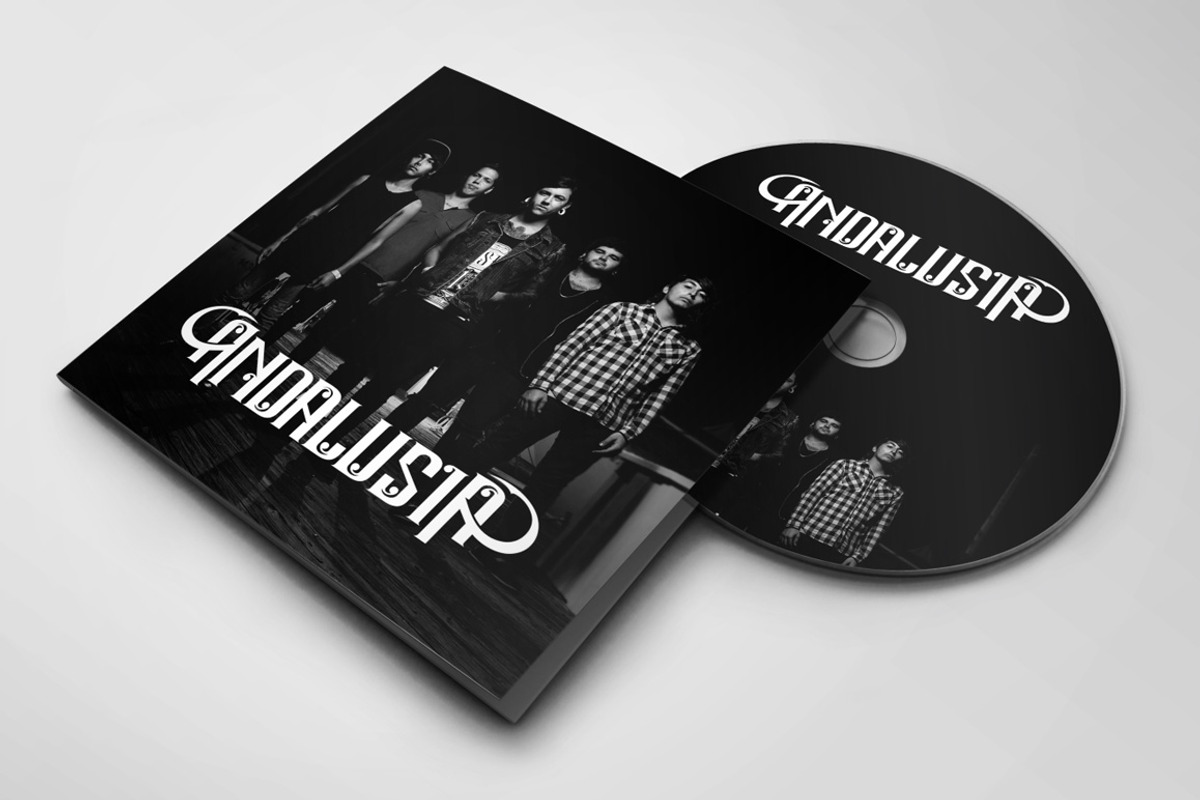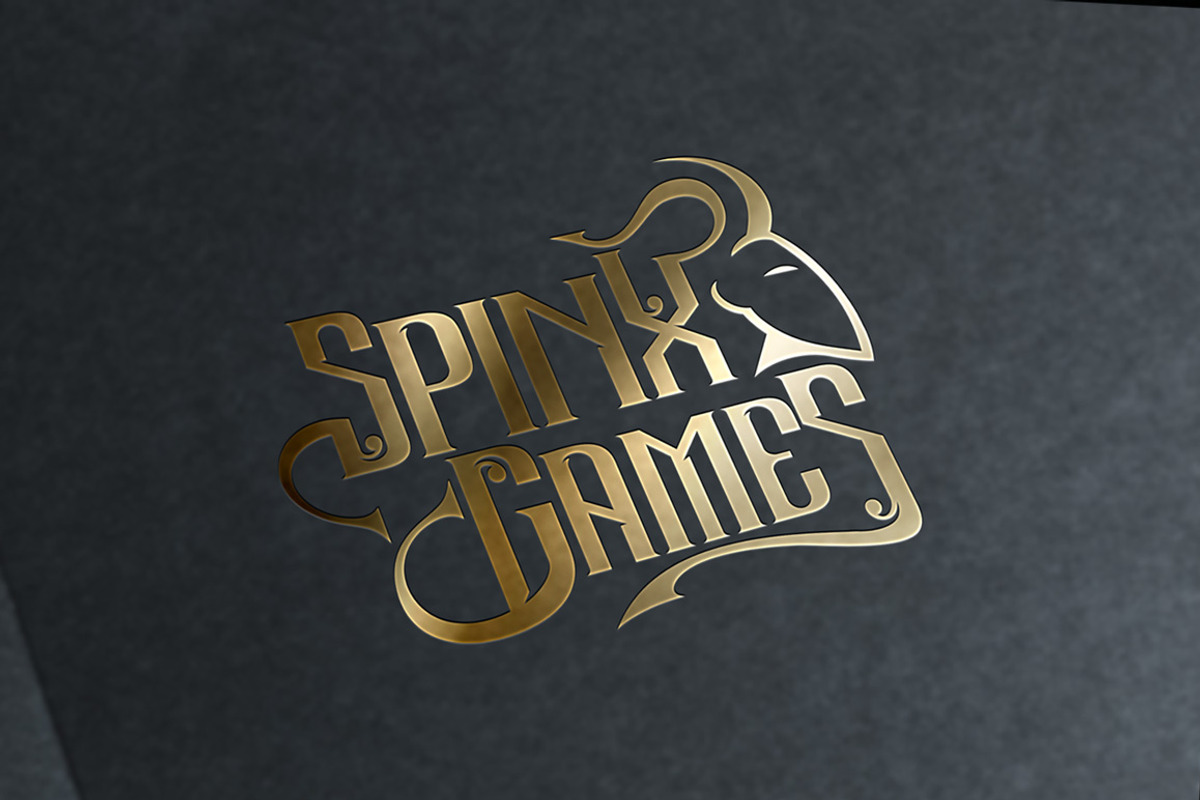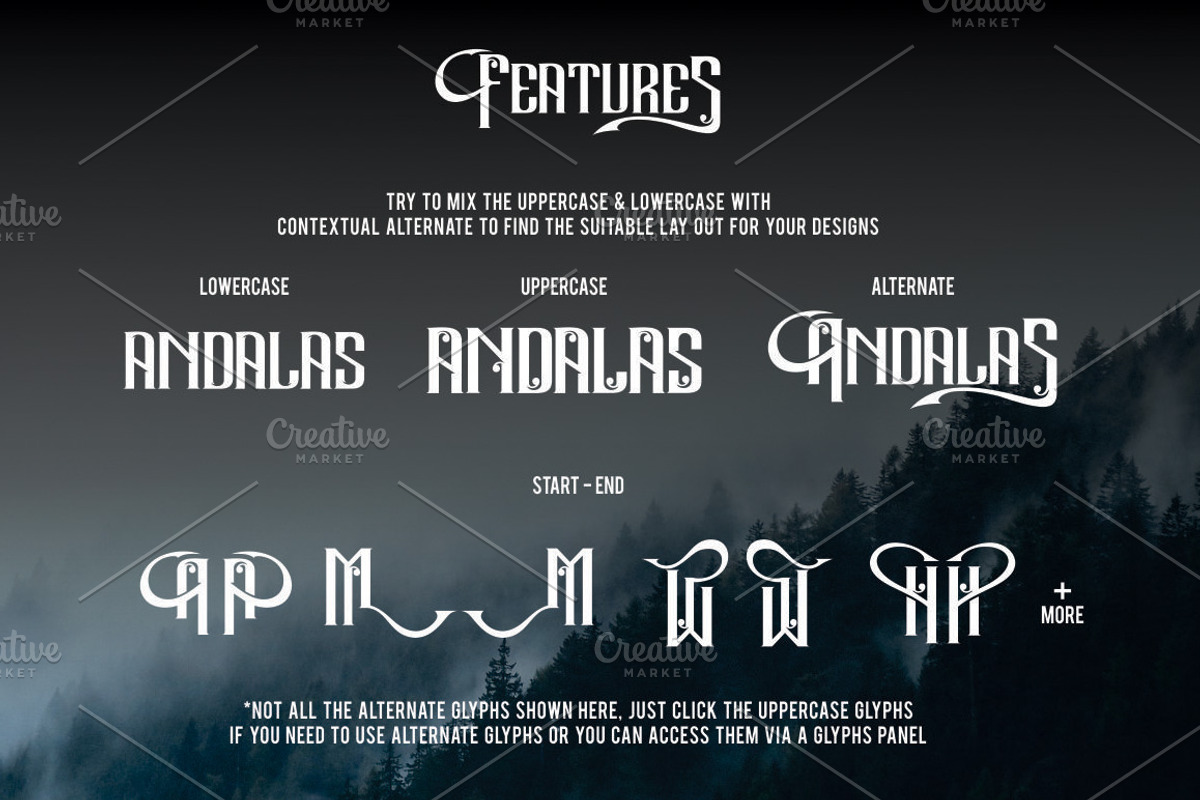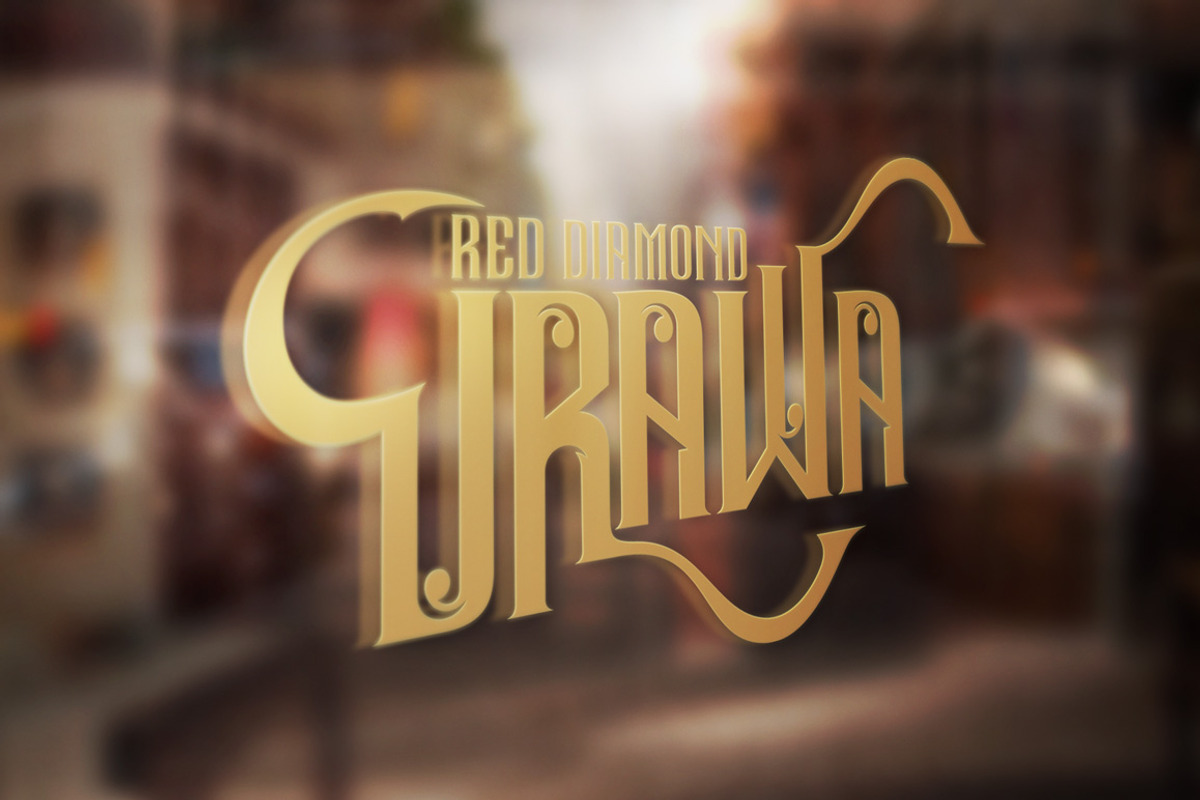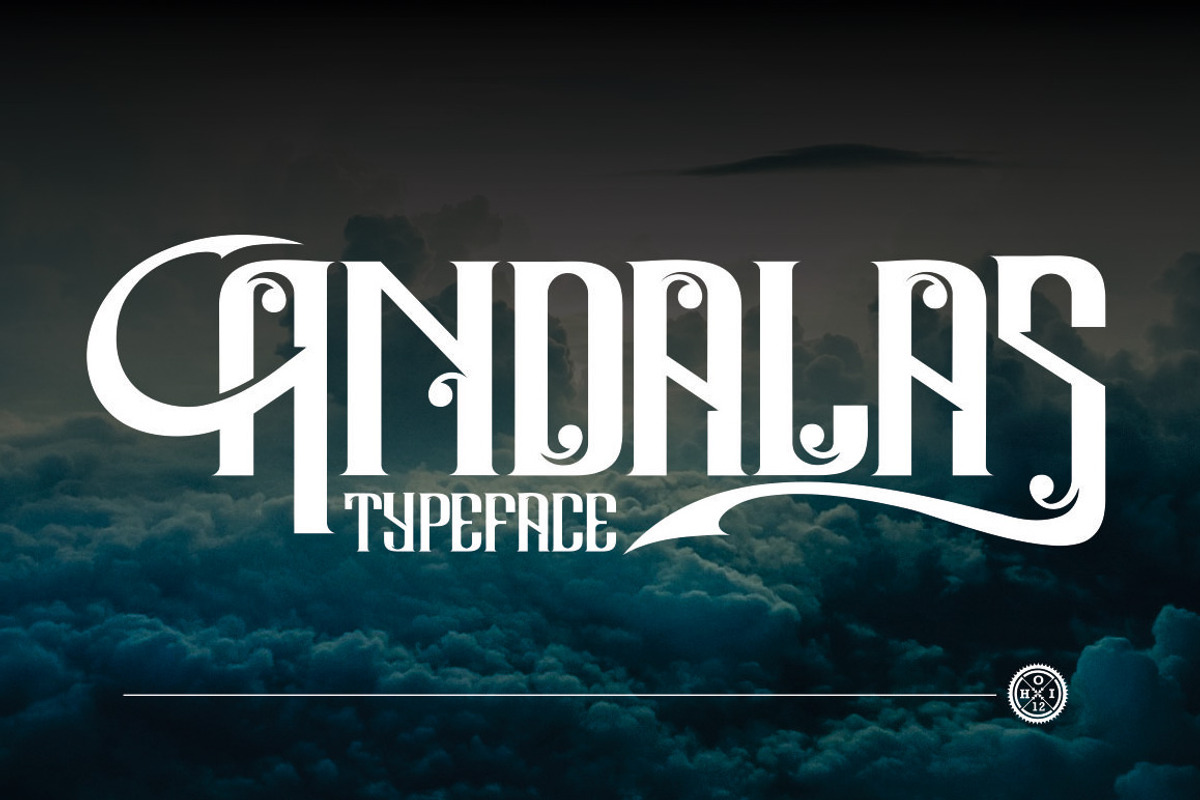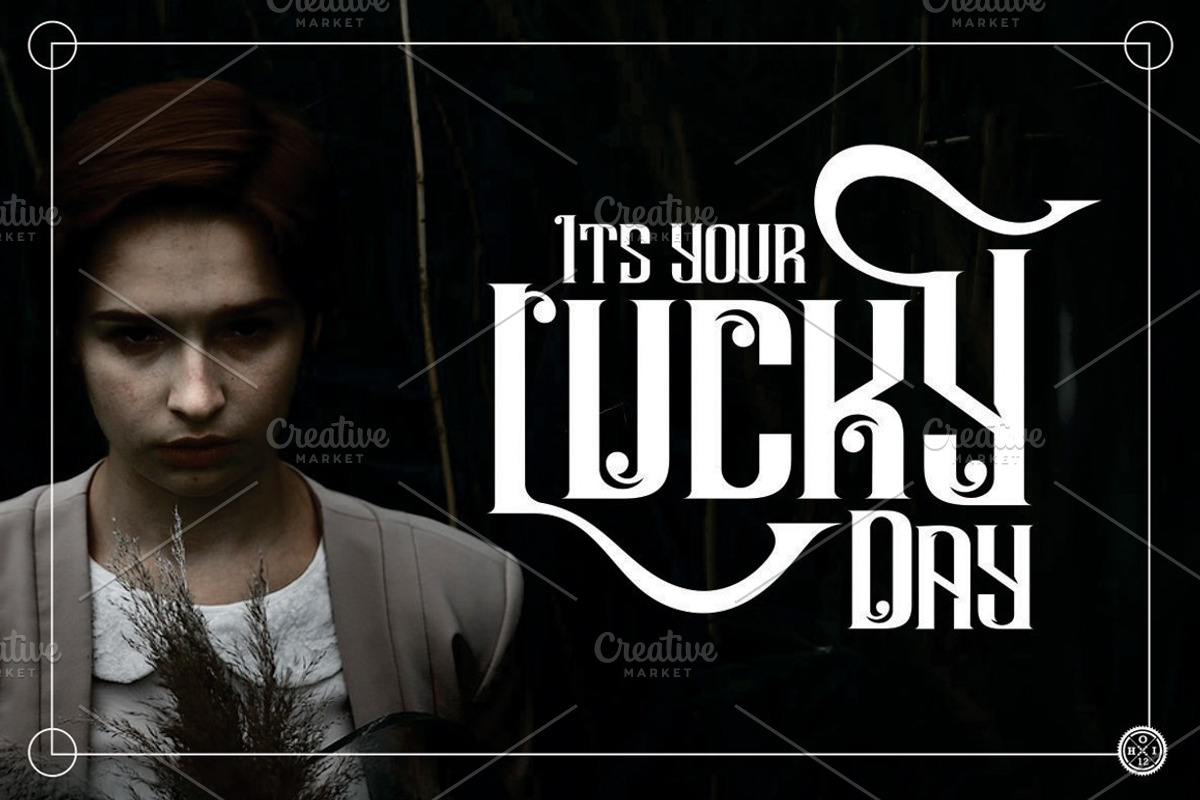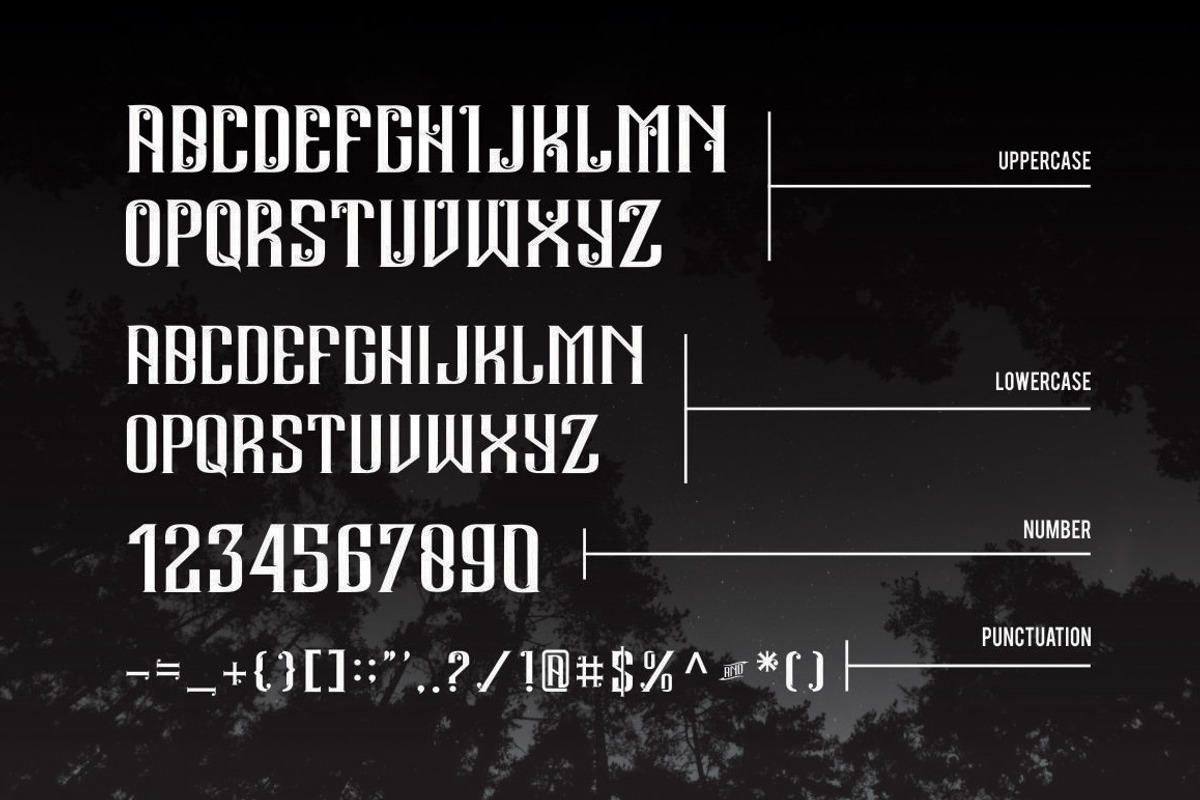
Andalas Typeface
Andalas Typeface by 160 Studio is a font selected for branding, posters, packaging, typography.
- comes with uppercase, lowercase, numerals, punctuations and so many variations on each characters include opentype alternates Andalas Typefa
Andalas Typeface by 160 Studio fits naturally into Branding, posters, packaging, typography.